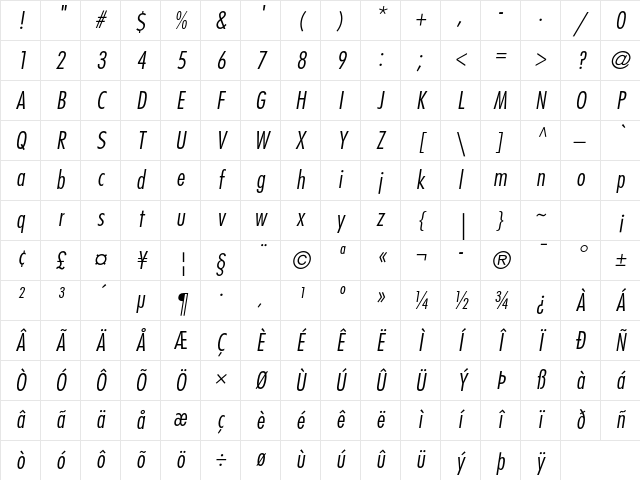
Complete Futura Std Light Condensed Oblique glyph index. Displaying only characters natively supported by Futura Std Light Condensed Oblique font.
Futura Std has a distinctly futuristic character, with geometric precision and clean angles that feel at home in technology, gaming, and sci-fi contexts. The slanted form adds forward momentum and visual energy. Its slender proportions lend an understated elegance to any composition. Its narrow stance lets it pack a punch even in space-constrained designs.
Pro Tip: Try Futura Std with generous letter-spacing in UI labels and navigation - the geometric forms benefit from room to breathe.